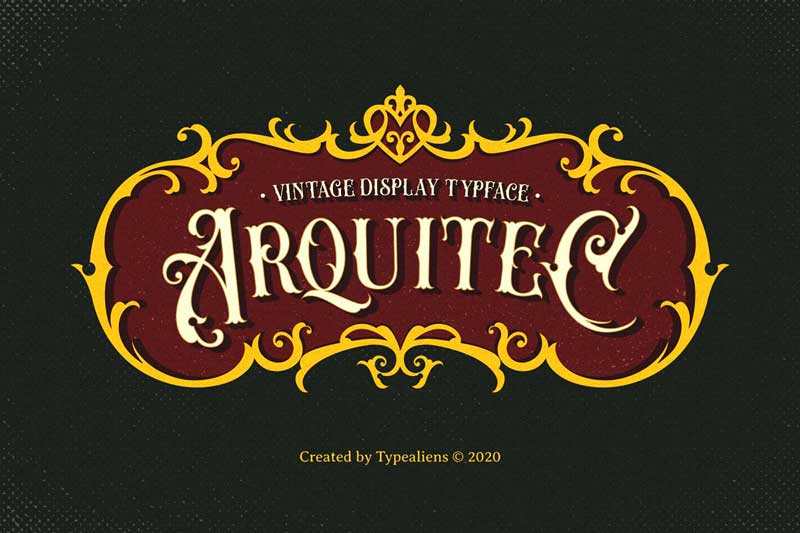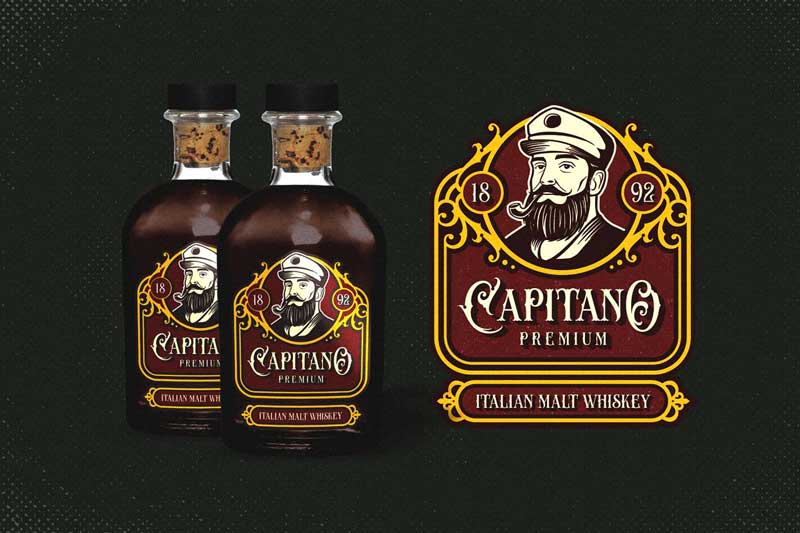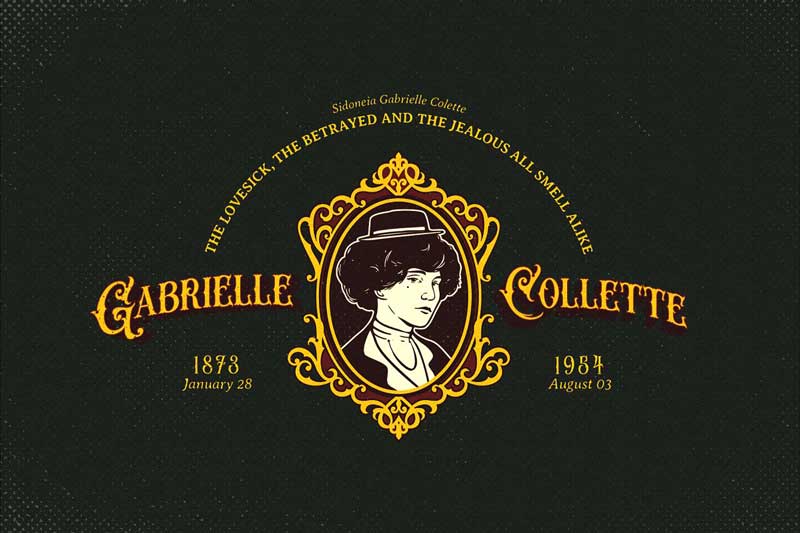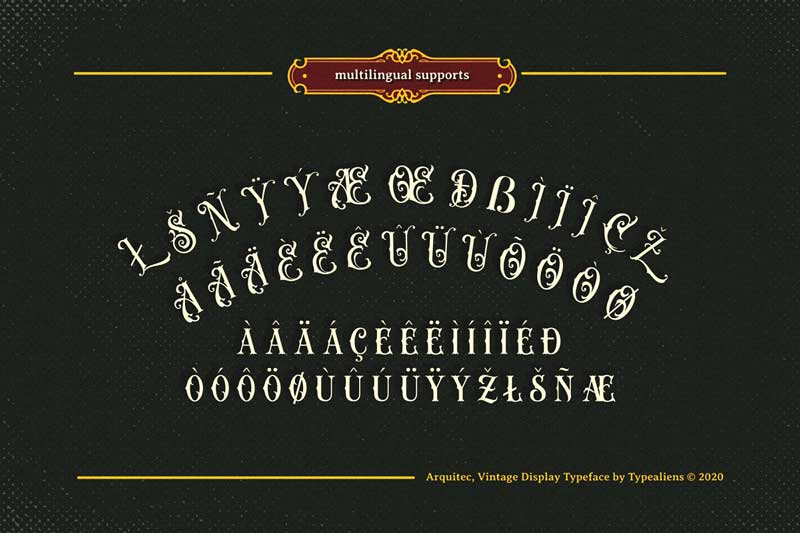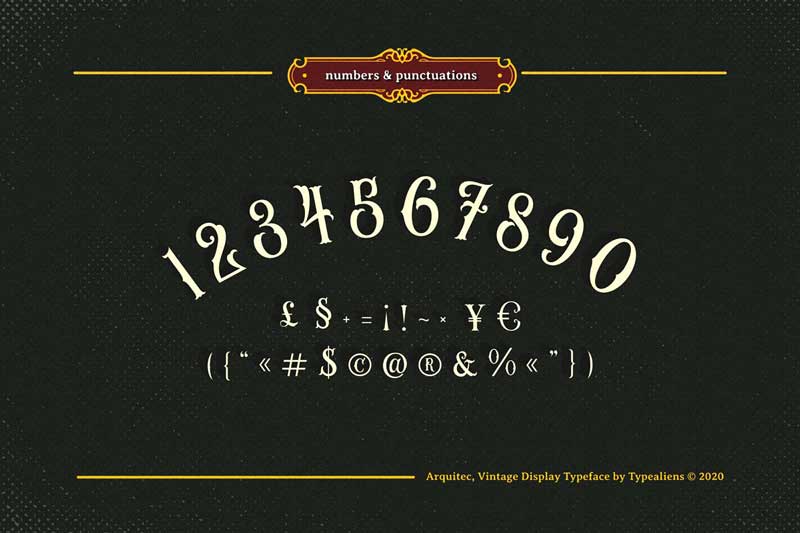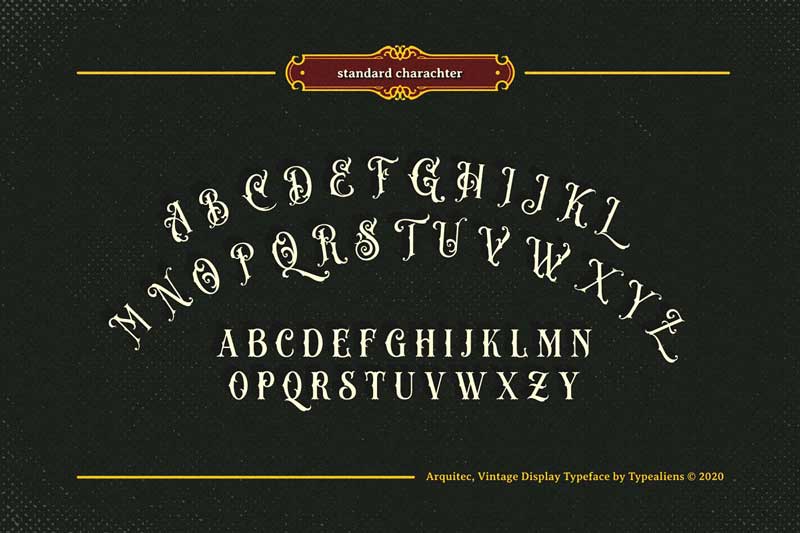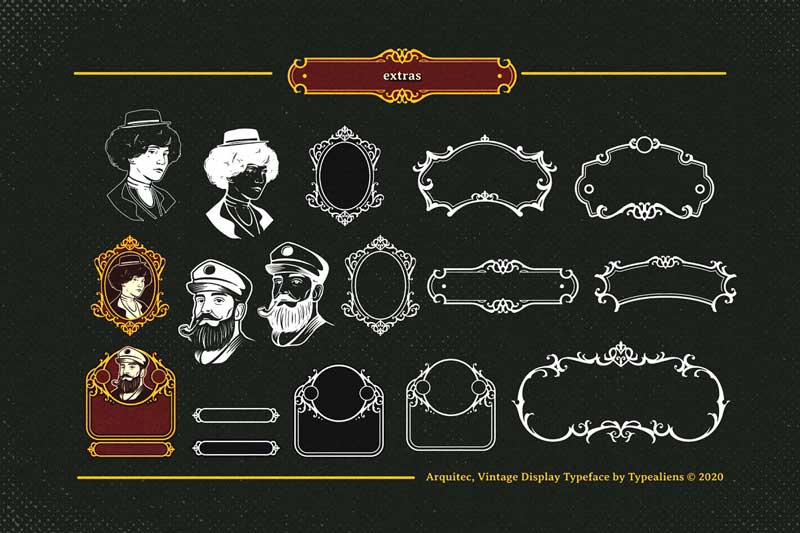
Arquitec Font 4655632
Arquitec Font is a serif font with vintage and decorative styles. It is suitable for designing vintage logotypes, vintage badge designs, packaging, liquor label designs. It would be very beautiful to add vintage ornaments and illustrations.
Features: Alternate Characters. Extras. Support Multilingual Characters.